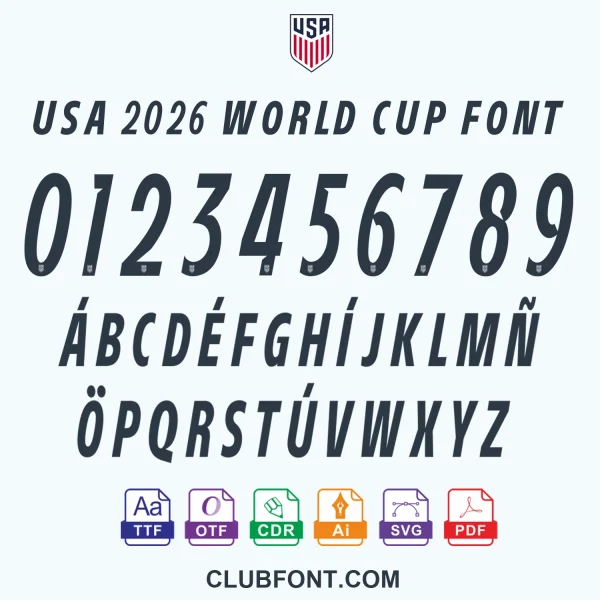
USA 2026 World Cup Inspired Typography Kit
Elevate your designs with the USA 2026 World Cup font collection. This bundle provides authentic tournament-style typography ready for both digital and print production. Perfect for graphic designers, apparel brands, and sports marketing agencies.